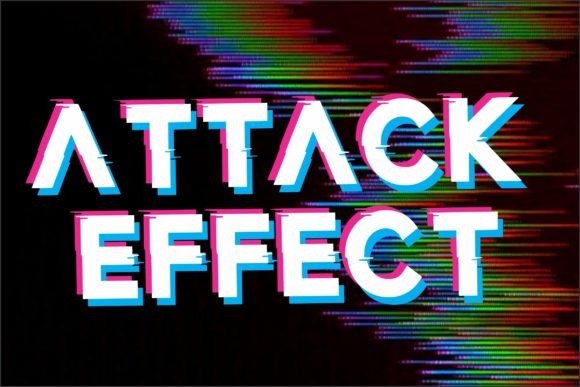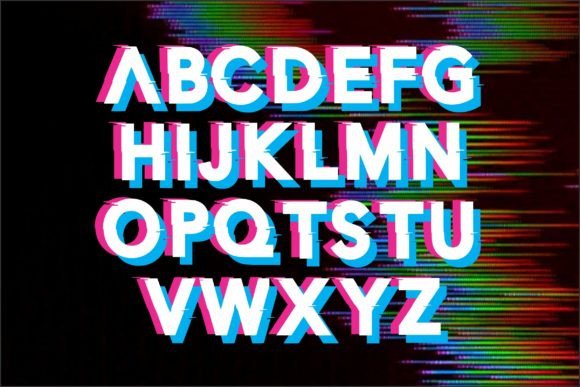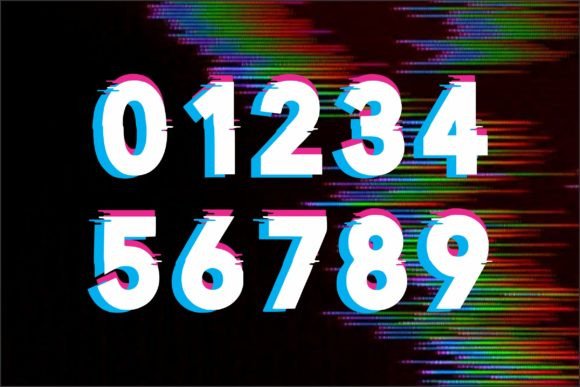
Introduction to Glitch Mood Font
Glitch Mood is a fun and quirky display font that describes system errors.
Add it confidently to your creative ideas and you will be impressed by the outcome generated .
Key Features of Glitch Mood Font